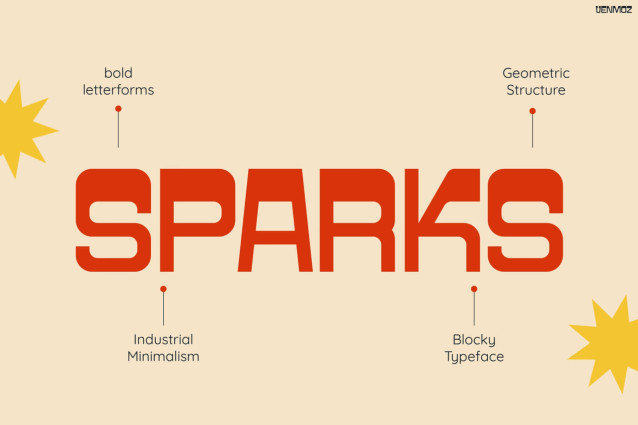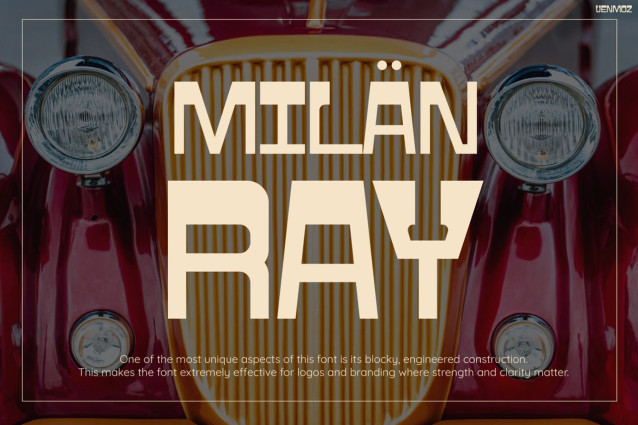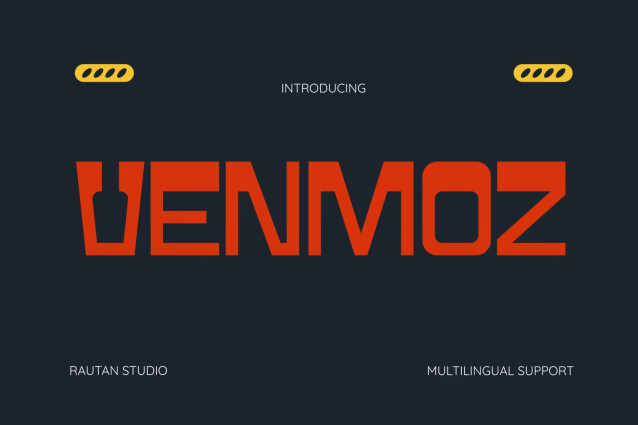
Venmoz Font
Venmoz Font is a bold arcade-inspired display font with compact geometric shapes. Perfect for gaming logos, posters, tech branding, and retro graphics.
Venmoz is a bold geometric display font designed for strong visual impact. First, the letterforms feature compact shapes and futuristic proportions. Because of this, the typography instantly feels energetic and distinctive. Furthermore, the structured block design creates a powerful retro arcade personality. As a result, the font performs beautifully in large titles and graphic layouts.